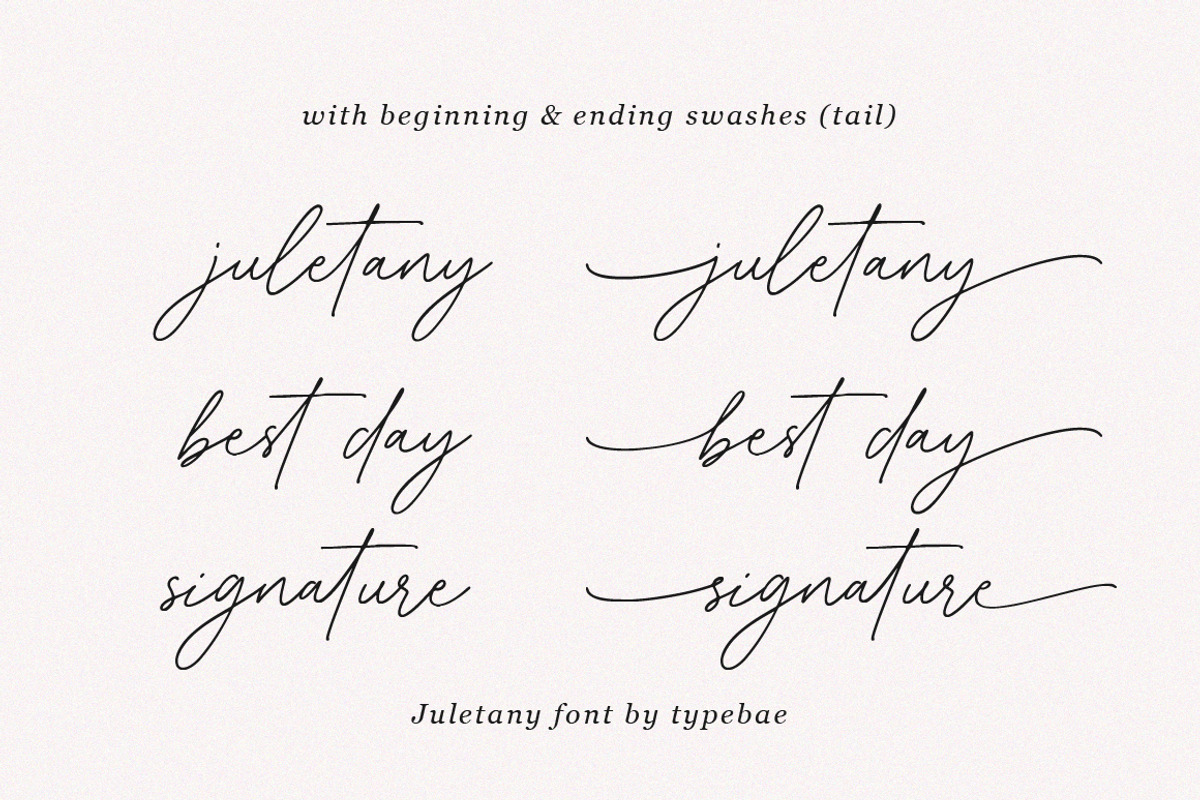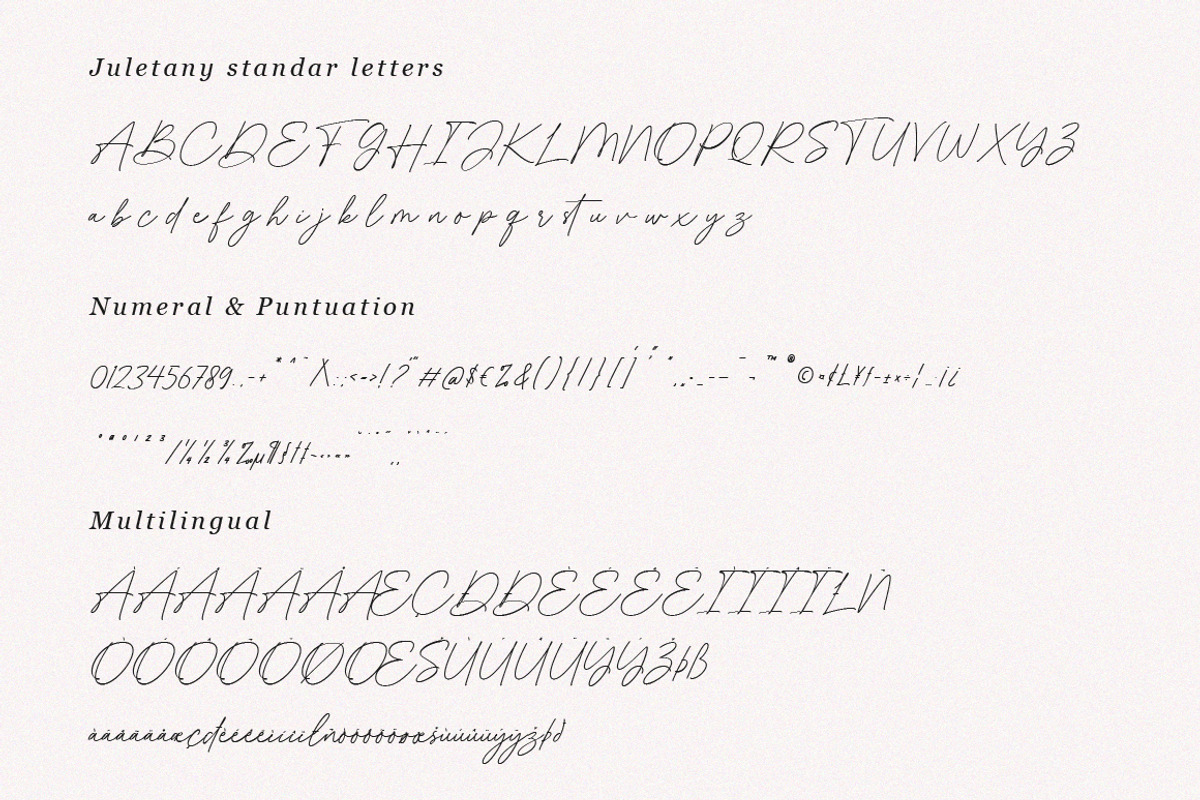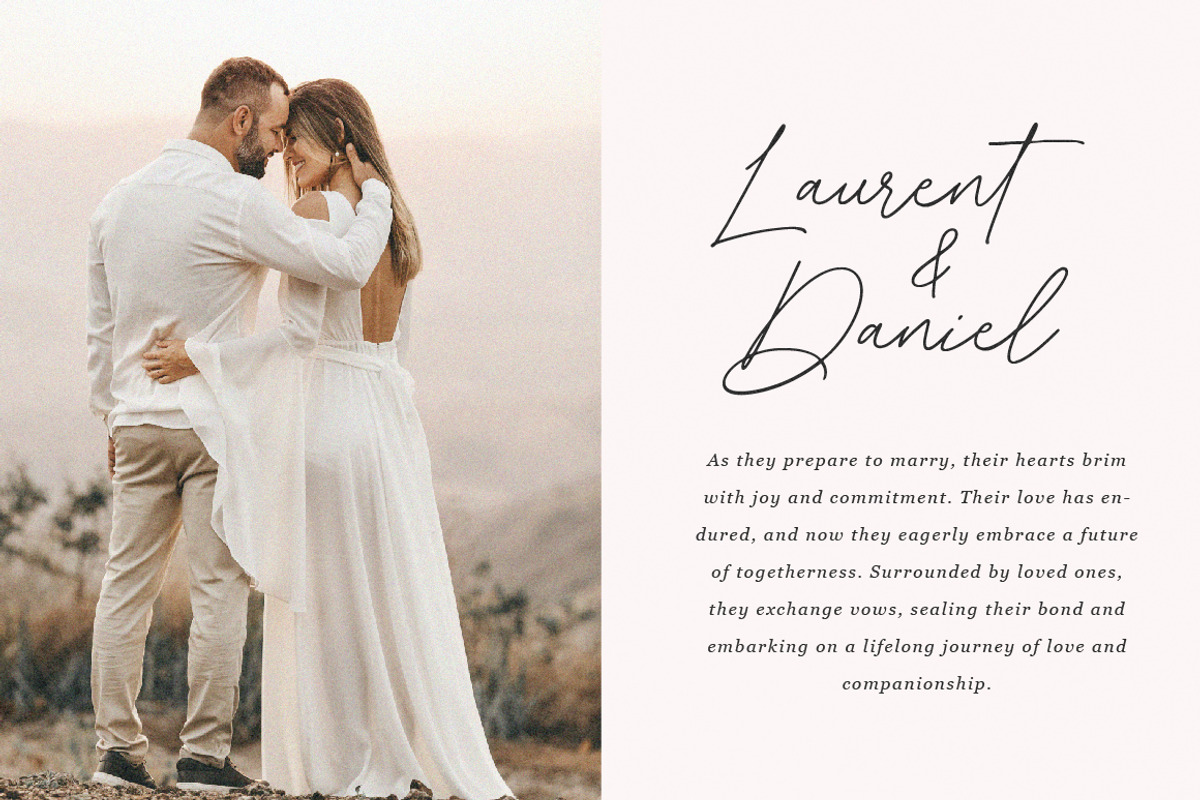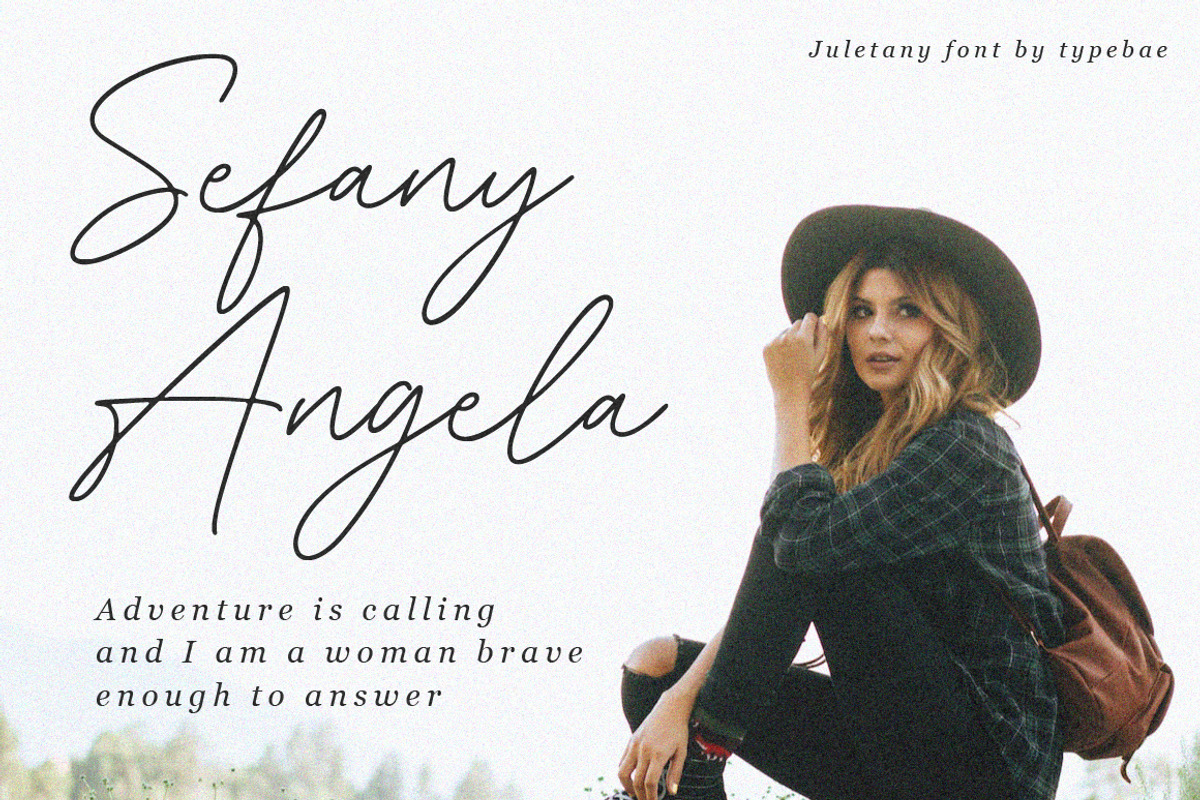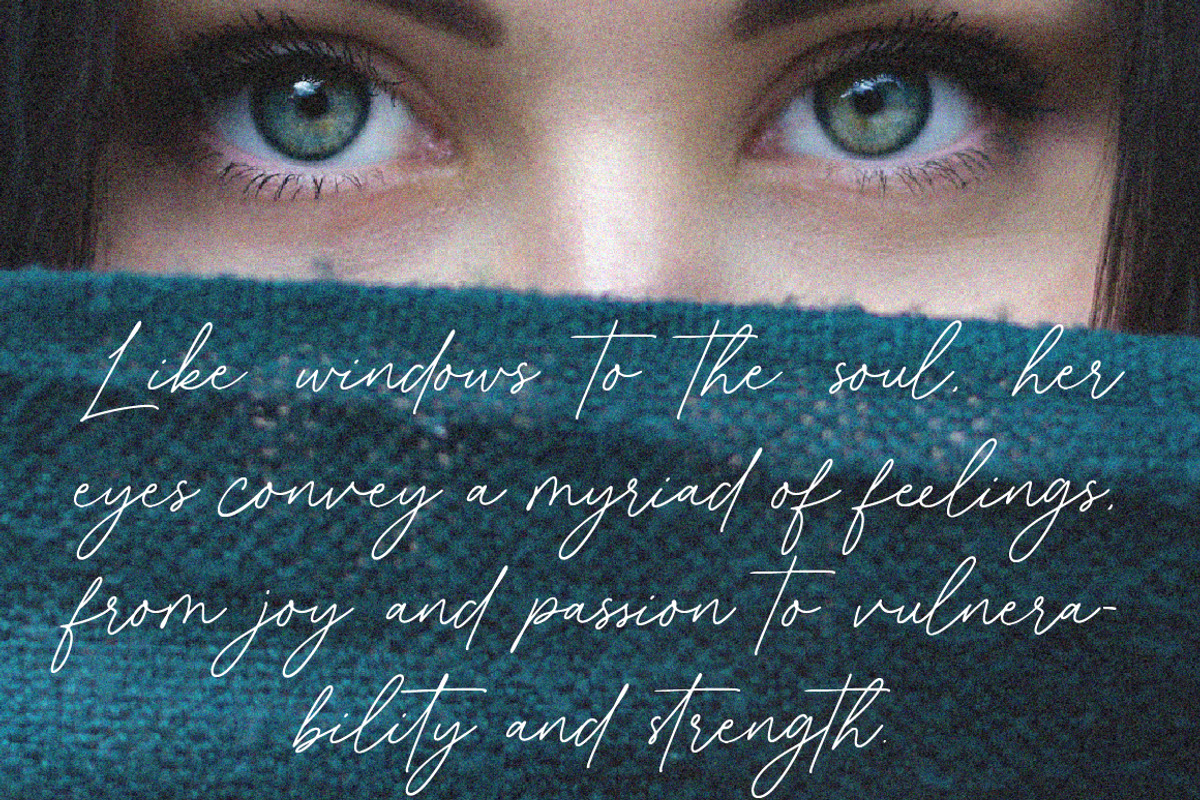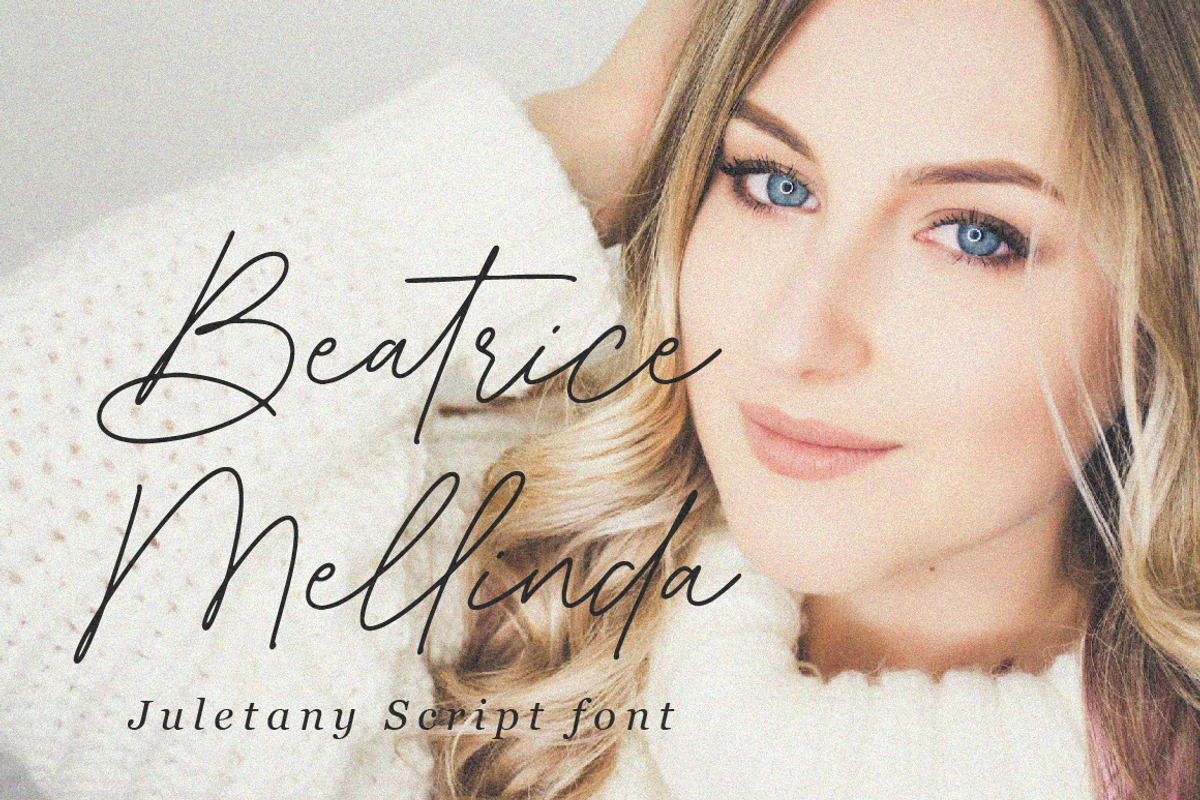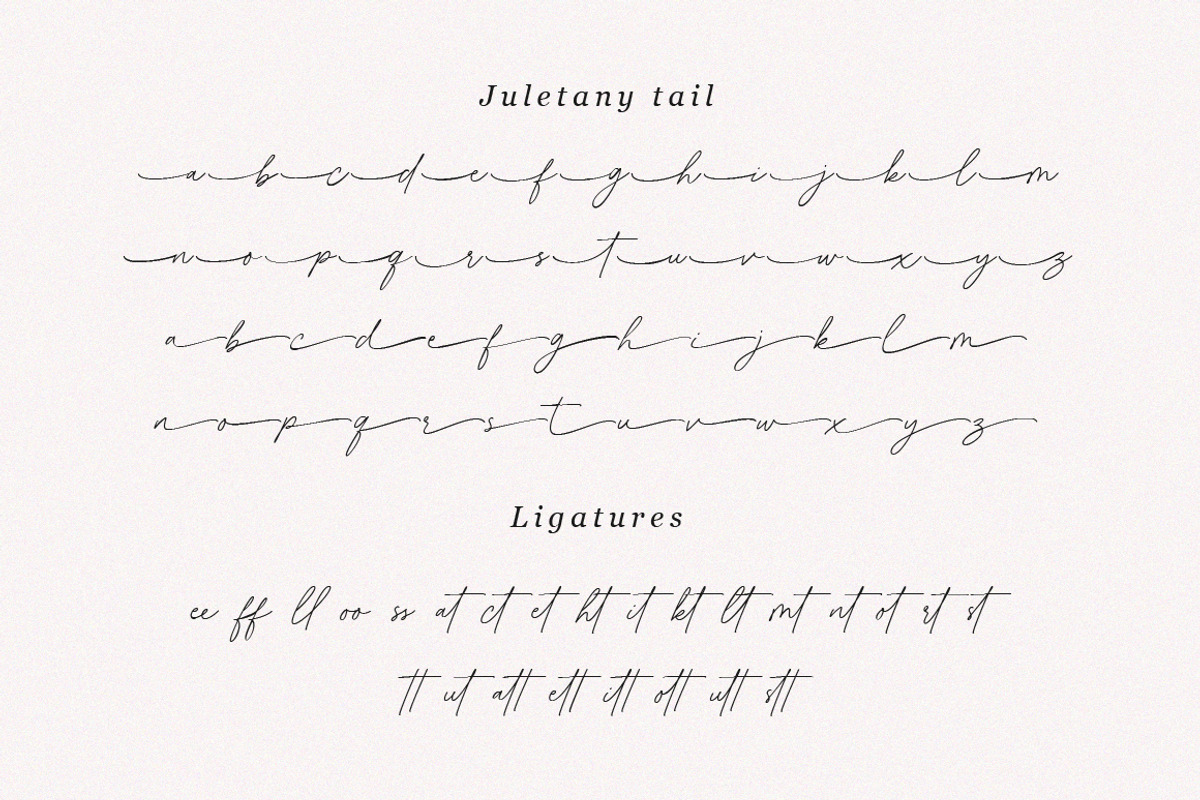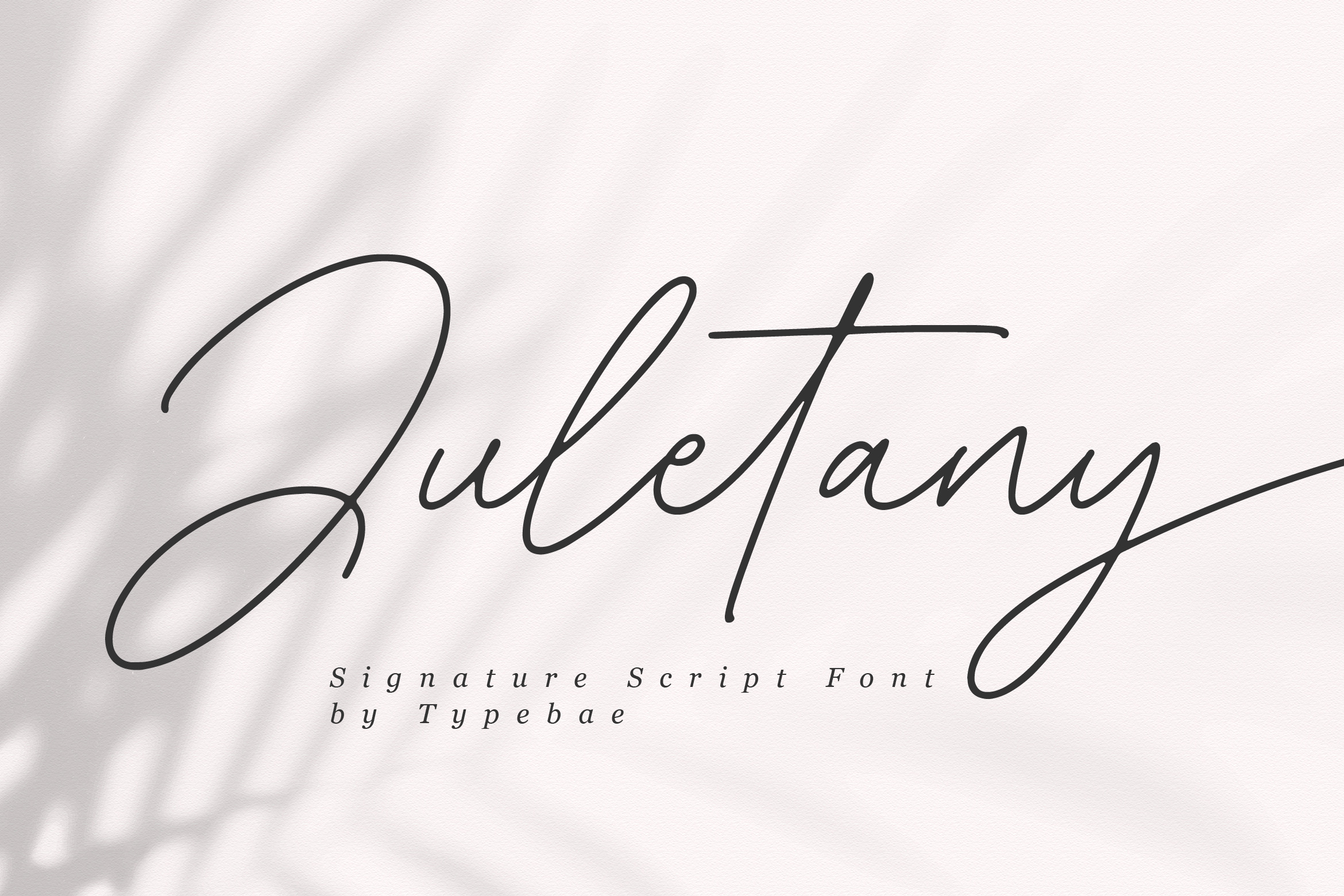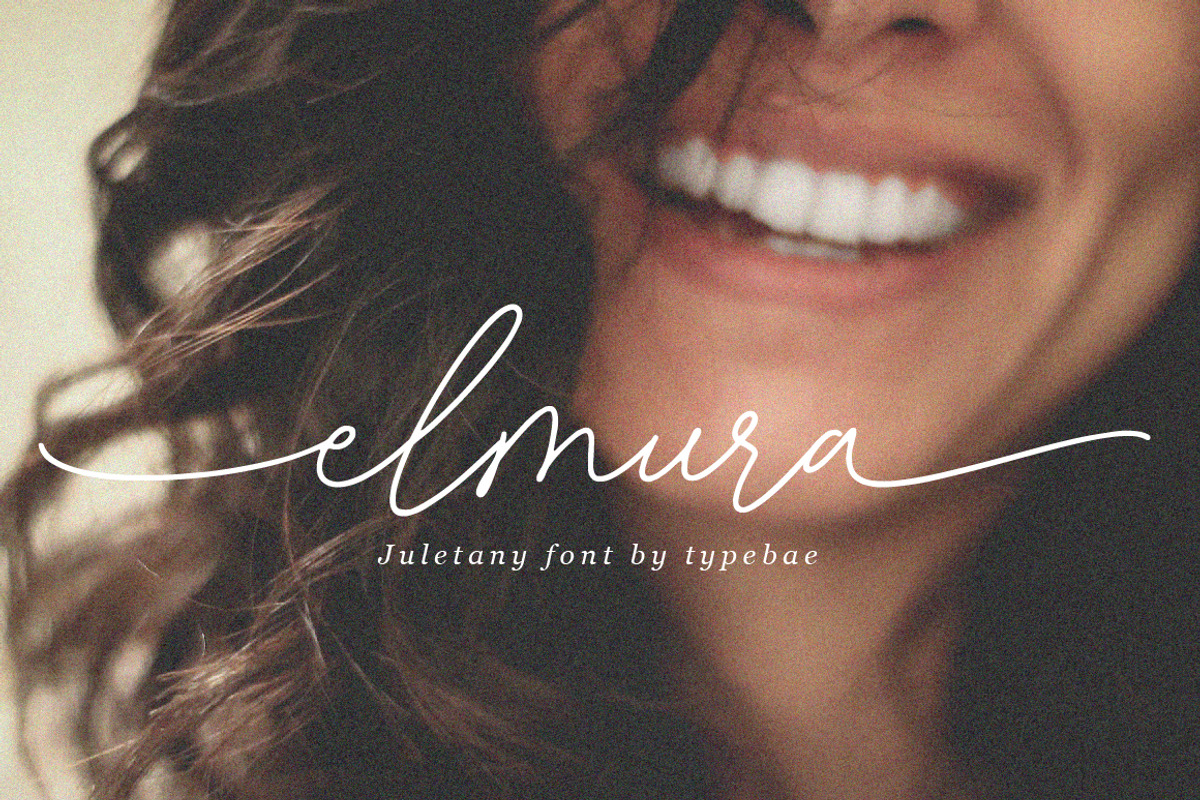
Juletany Signature Script Font
Juletany is an exquisite handwritten signature script font that features elegant swashes at the beginning and end of each letter. It offers ligatures, allowing certain letter combinations to flow seamlessly for a more natural and authentic look. This font is also designed to support multiple languages, making it versatile and suitable for various design projects.
Feature: Ligature, Multilingual and PUA encoded.